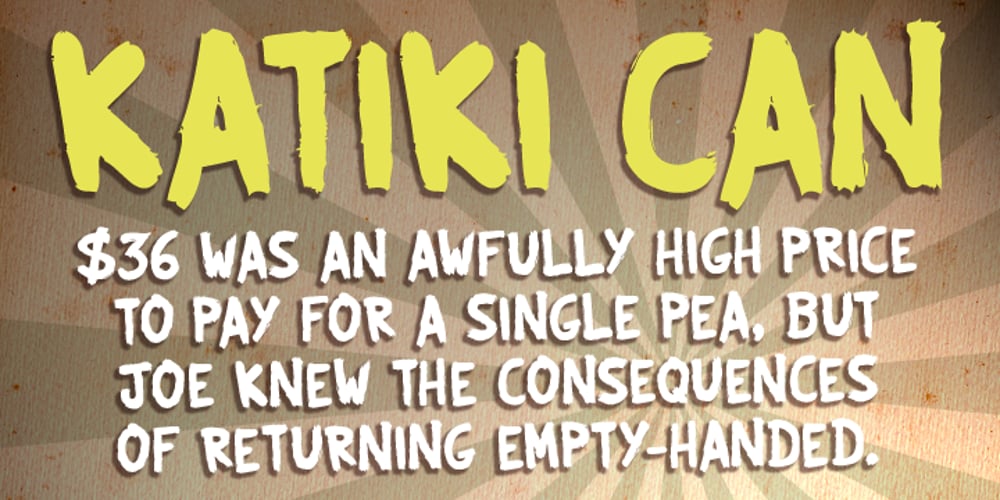
Katiki Can Font Family was designed by Jon Jennings and published by DogHead Studio. Katiki Can contains 1 styles and family package options. Katiki Can is a bold, messy, painty display font inspired by all of the trashcans in the Outer Banks with names of rental homes painted on the side.